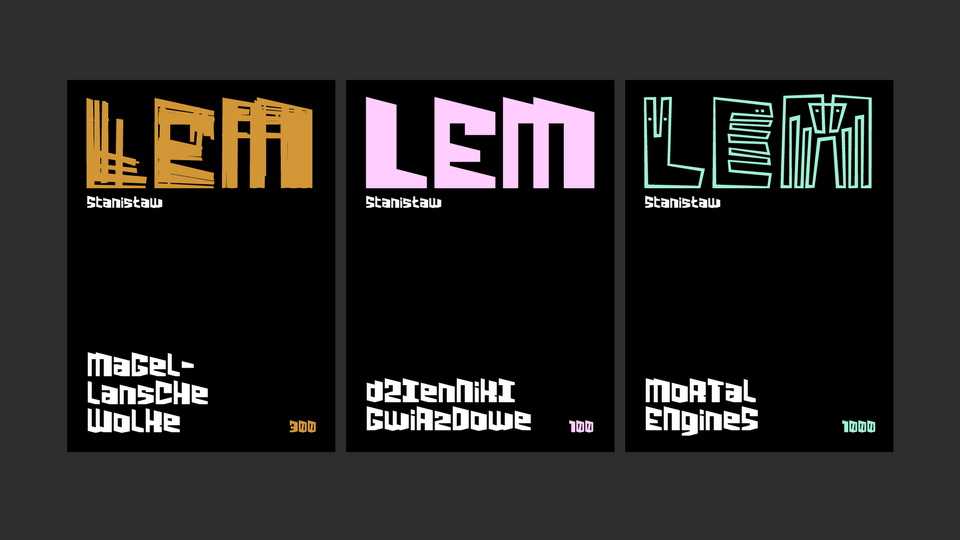
Download Filidron font, a display typeface inspired by the heavy typography on the covers of Lem’s books and movie posters based on his works.
Designer: Małgorzata Bartosik